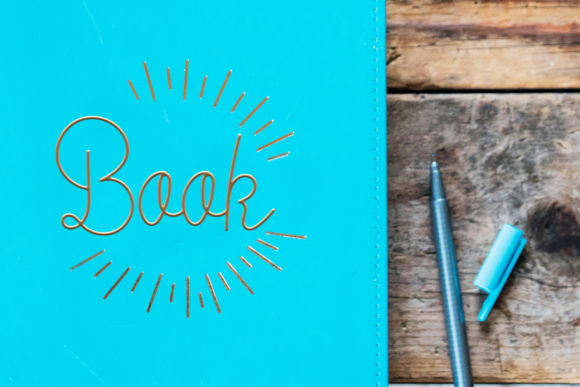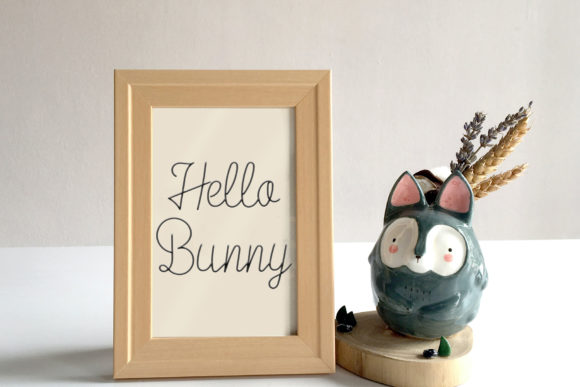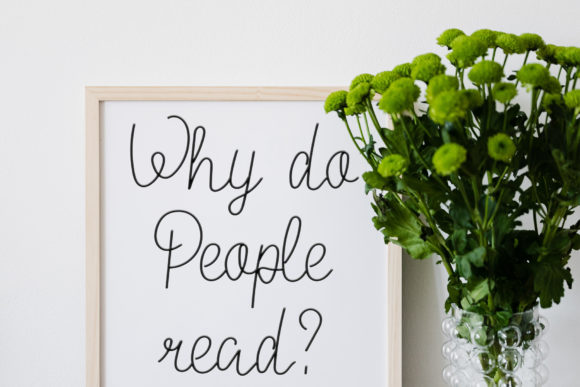
Introduction to Kinanti Font
Have you ever stared at a blank canvas, eager to bring your creative vision to life, only to be stumped by the perfect font? The struggle is real, but fear not, designers! Today, we’re excited to introduce you to the Kinanti Font, a stunning handwritten font that’s sure to elevate your creative project to the next level.
With its elegant and balanced design, Kinanti Font is the perfect addition to any project requiring a personalized touch. Whether you’re crafting wedding invitations, thank you cards, or logos, this versatile font is sure to make a lasting impression. And the best part? It’s a high-quality design resource that’s available for free download, making it a valuable asset for any designer looking to add a unique touch to their work.
Key Features of Kinanti Font
- High-quality design: Kinanti Font is a premium design resource that offers a unique and stylish look for creative projects.
- Unique characteristics: This font features a distinctive and modern design, with a focus on clean lines and elegant typography.
- Perfect for creative projects: Kinanti Font is an excellent choice for designers, artists, and creatives working on various projects, from branding and advertising to digital art and graphic design.
Honest Review: Kinanti Font
I recently came across the Kinanti Font, and I’m excited to share my thoughts on this free design resource. As a designer, I’m always on the lookout for high-quality fonts that can elevate my creative projects.
The Kinanti Font is a beautiful, elegant script font that’s perfect for titles, headings, and even body text. It’s available for free download, making it an excellent resource for designers on a budget.
- ✨ High quality: The Kinanti Font is incredibly well-crafted, with smooth lines and a consistent feel.
- ⚠️ Limited language support: Unfortunately, the Kinanti Font only supports a limited range of languages, which may be a issue for designers working on international projects.
- ⚠️ Limited font sizes: While the font looks great at larger sizes, it can become a bit pixelated at smaller sizes.
Overall, the Kinanti Font is a solid choice for designers looking for a high-quality, free font. While it has some limitations, its elegance and versatility make it a great addition to any design project.
The Kinanti Font is ideal for a variety of design projects, including logos, business cards, and digital marketing materials. Its transparent background and high-quality design make it a popular choice among designers.